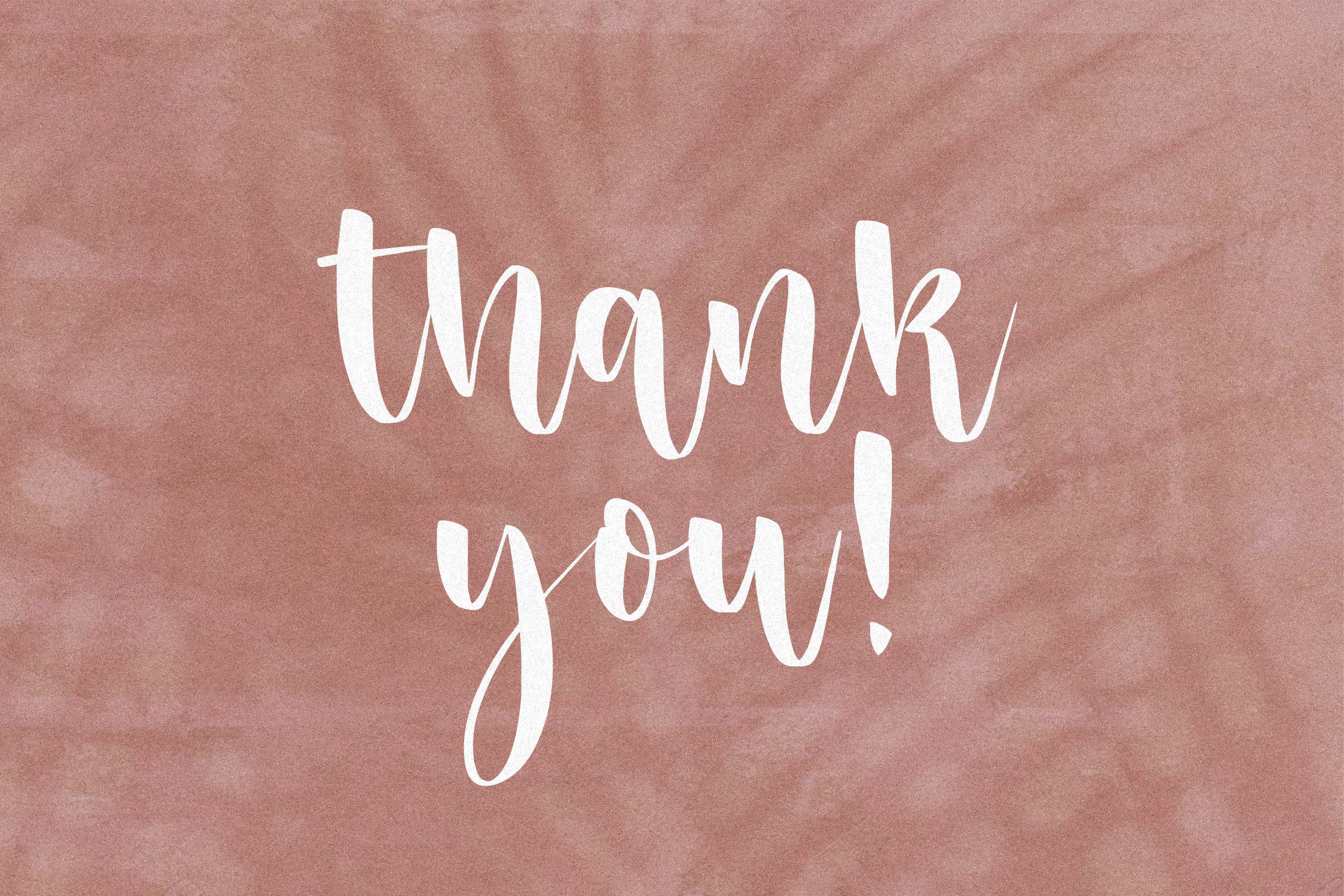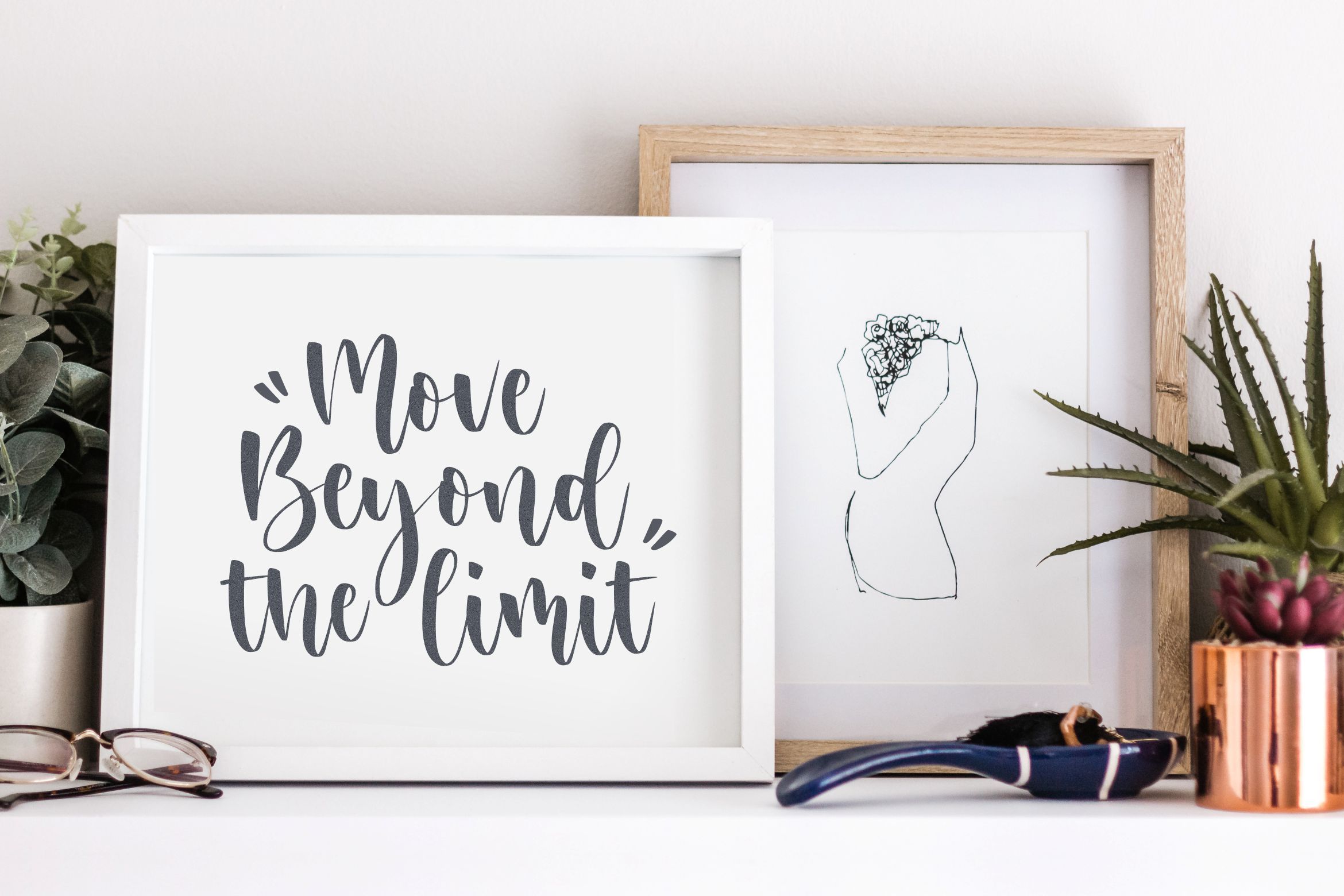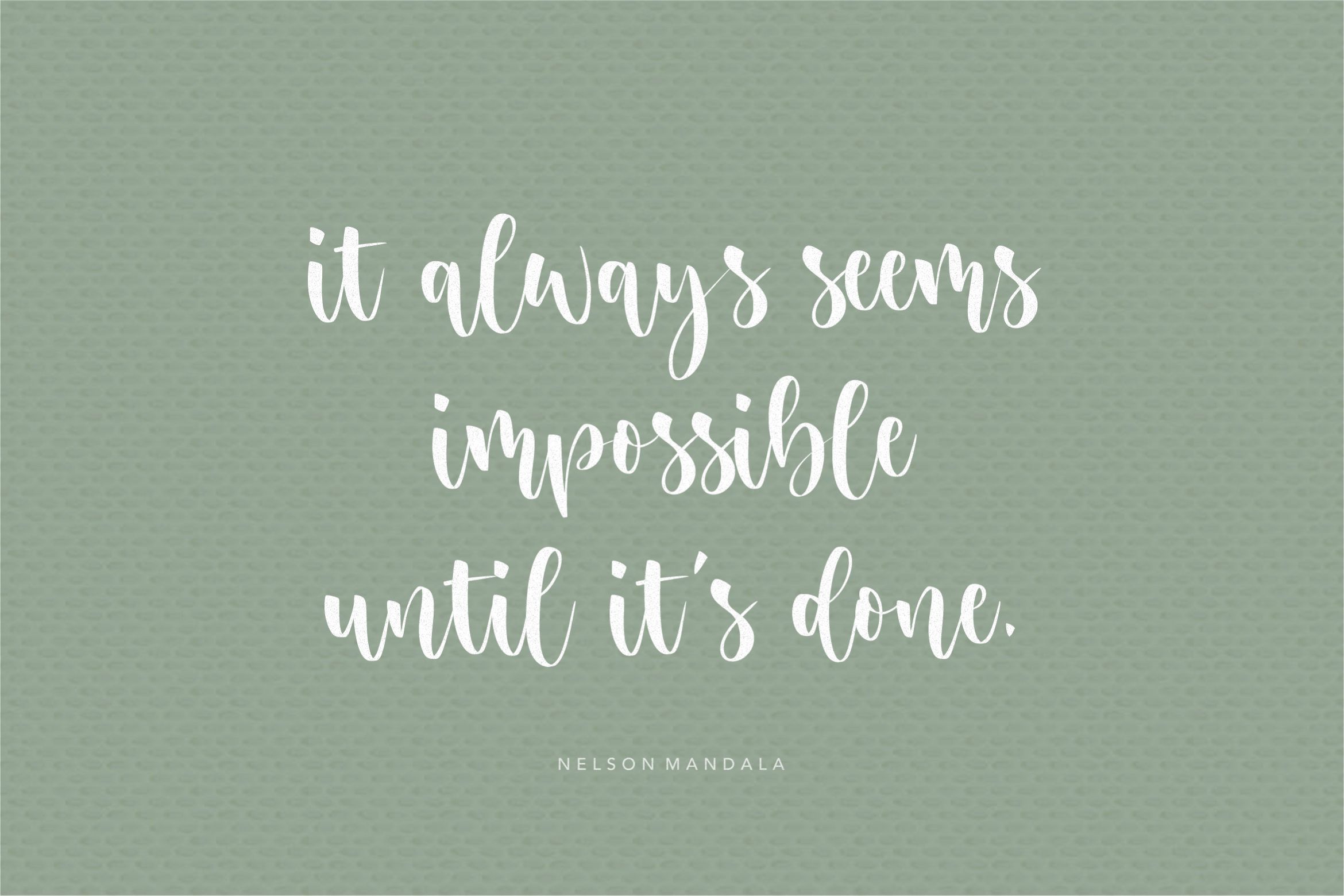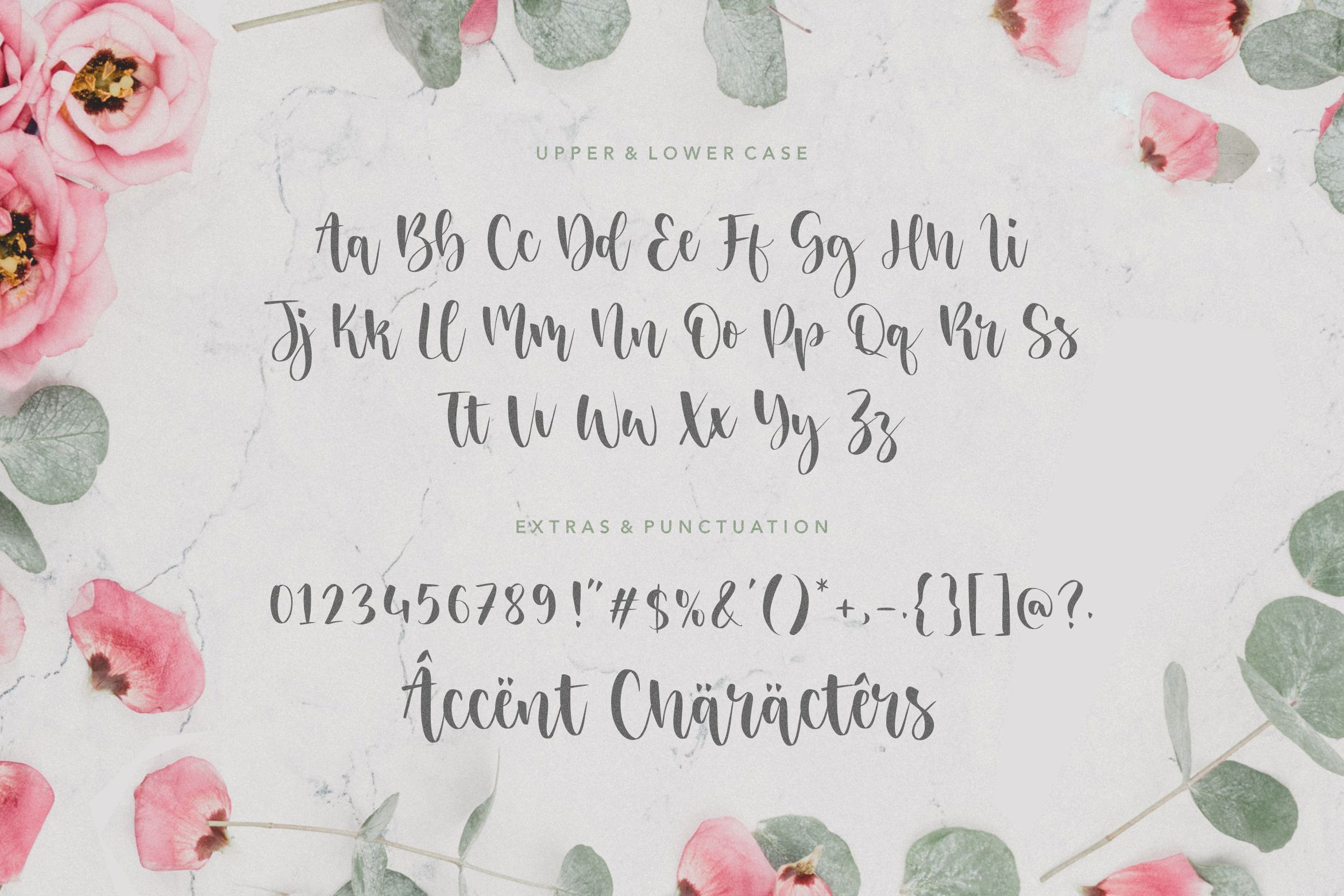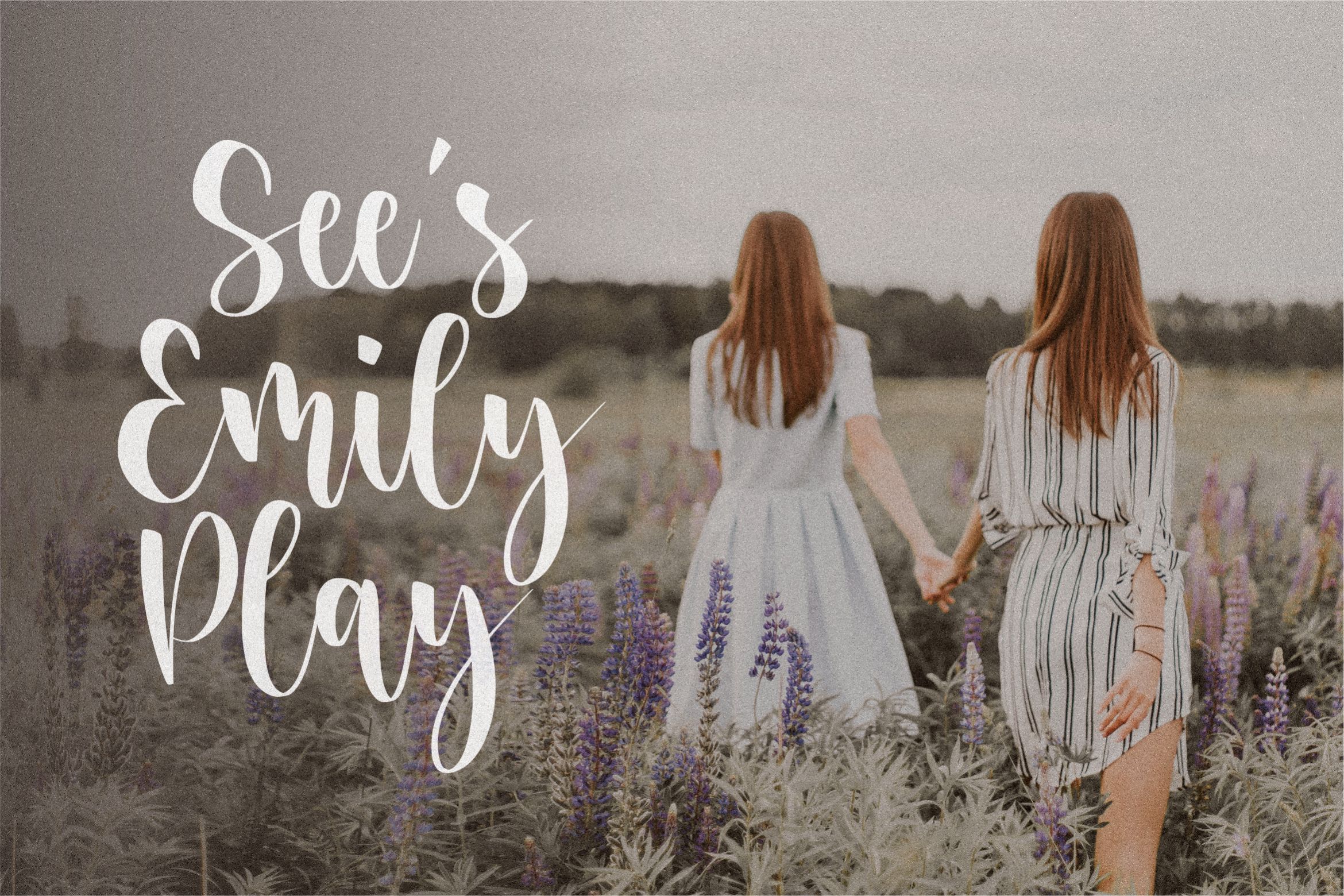
About Sisterhood Elegant & Beautiful Script Font
Introducing by Letterative Studio : Sisterhood Font Sisterhood is an Elegant & Beautiful Script Font Sisterhood is an elegant and beautiful handwritten font. Use it for any design projects that require a charming appearance! This font includes : TTF and OTF Sisterhood also multilingual support Enjoy the font! Feel free to comment or feedback Send me PM or email Thank you!